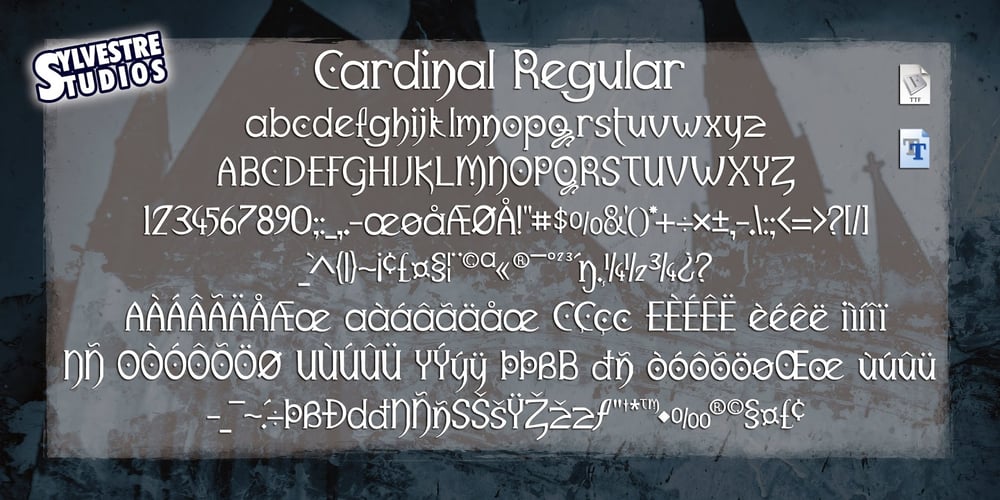
Cardinal
Cardinal font
Cardinal Font Family was designed by Mick Sylvestre and published by Sylvestre Studios. Cardinal contains 5 styles and family package options. A crisp and elegant Neo-Humanistic font.